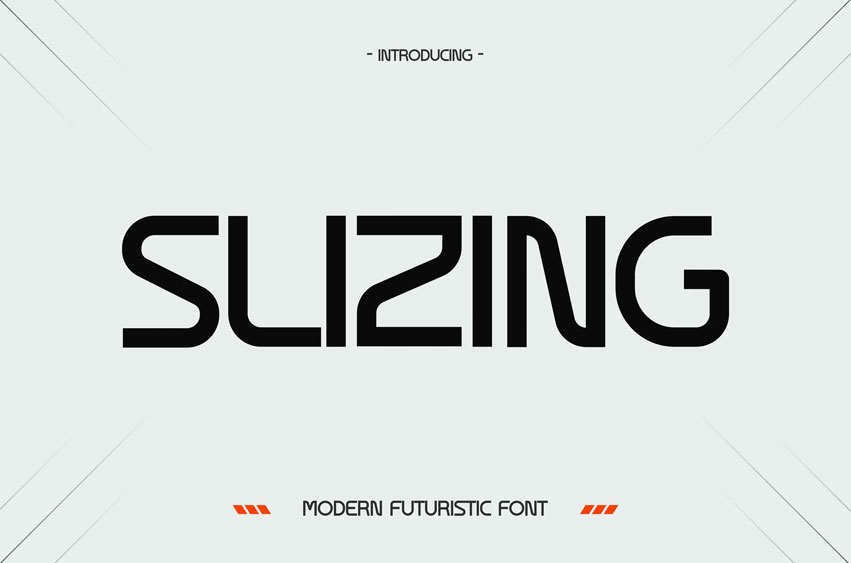
Slizing Font is a futuristic tech display typeface crafted for modern technology branding, combining sharp angular cuts, geometric construction, and low-contrast strokes that feel precise and forward-focused. Its vibe is bold, digital, and confident—naturally suited for tech companies, gaming visuals, startup branding, and futuristic editorial layouts.
The letterforms are clean and structured, with straight edges and engineered proportions that deliver clarity and impact in headlines, interfaces, and promotional graphics. Slizing helps technology-driven brands speak the language of progress. From posters and editorial layouts to app UI headers, gaming visuals, and innovation showcases, this typeface creates a strong futuristic impression. Its sharp geometry and controlled spacing guide attention, making it ideal for designers who want to communicate intelligence, speed, and modernity at first glance.
Key Features : Futuristic Display Character • Angular letterforms with sharp terminals • Clean, low-contrast strokes for a digital feel
Built for Tech & Innovation • Ideal for startups, tech brands, robotics, and sci-fi visuals • Strong headline presence for posters and digital media
Structured & Readable • Balanced proportions for clear large-size typography • Consistent rhythm across uppercase and lowercase
Versatile Digital Performance • Works well on dark and light backgrounds • Suitable for print, screen, and interface-focused layouts